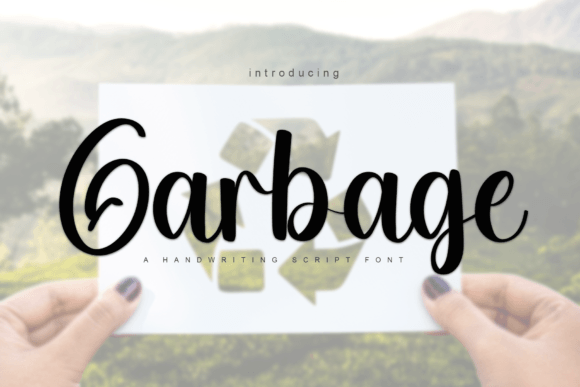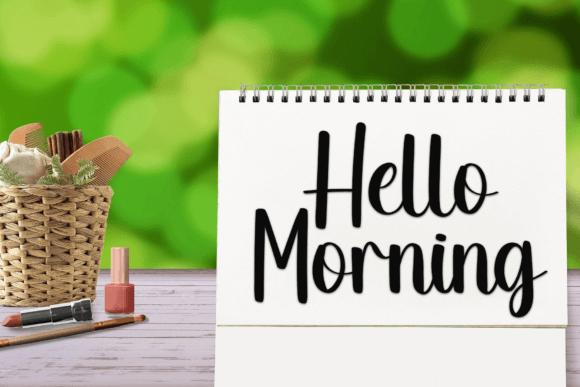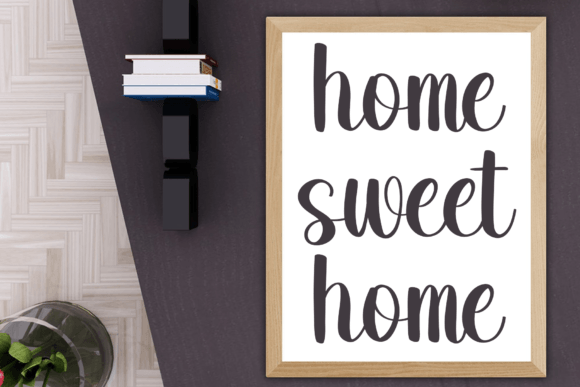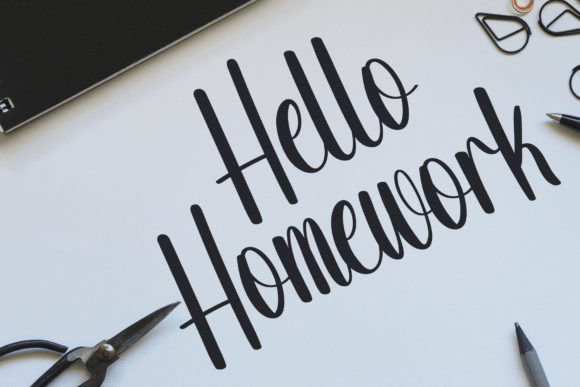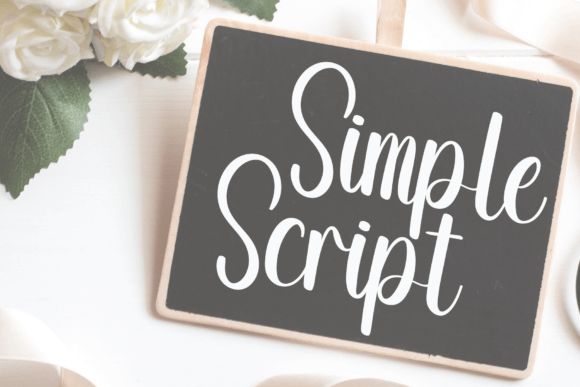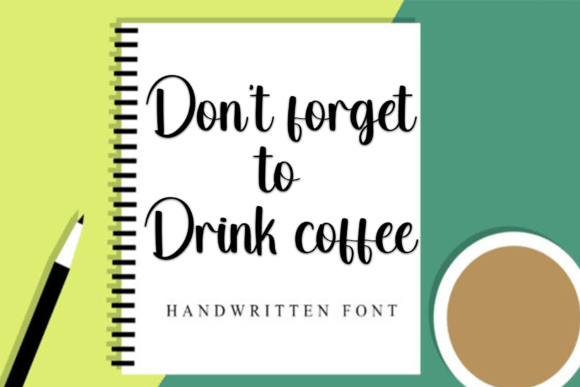
Garbage Font
About Garbage Font
“Garbage” is a distinctive and creatively designed handwritten font with rounded letterforms. Its unique style sets it apart and offers a playful and unconventional touch to your design projects. This font is versatile, making it suitable for a wide range of applications, including titles, invitations, letters, and various other types of creative products.
The round letterforms of “Garbage” contribute to its distinctive character, giving your designs a fresh and eye-catching look. Whether you’re looking to create attention-grabbing titles, add a touch of whimsy to invitations, or infuse your letters with a quirky personality, “Garbage” provides the perfect canvas for your creative expression.
In the world of design, fonts play a pivotal role in conveying mood, setting the tone, and making a lasting impression. “Garbage” excels in these aspects by offering a unique and unconventional style that can help your designs stand out in a crowd. Its handwritten quality adds a sense of authenticity and a personal touch to your projects, making them more engaging and memorable.
In summary, “Garbage” is a font that dares to be different. Its rounded letterforms and distinctive design make it a valuable asset for designers looking to add a playful and unconventional element to their work. Whether you’re a seasoned designer or exploring new creative horizons, “Garbage” is a font that invites you to break free from the ordinary and experiment with unique and eye-catching typography in your designs.